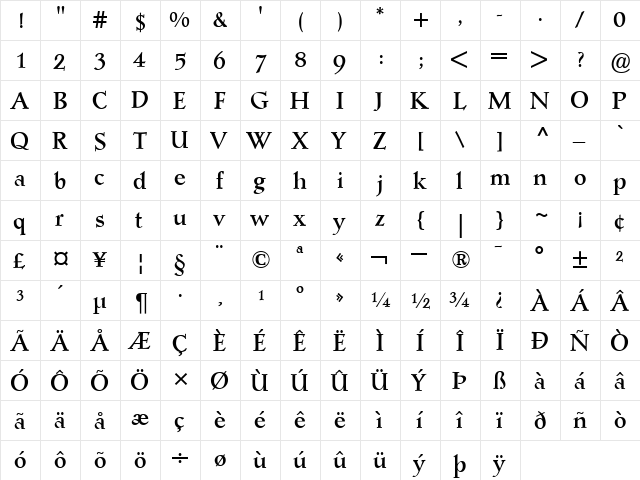
PostMediaeval-Medium Medium
Design Context for PostMediaeval-Medium Typeface
PostMediaeval-Medium takes a measured approach to typography — its balanced proportions and neutral character make it a reliable workhorse for both digital and print work.